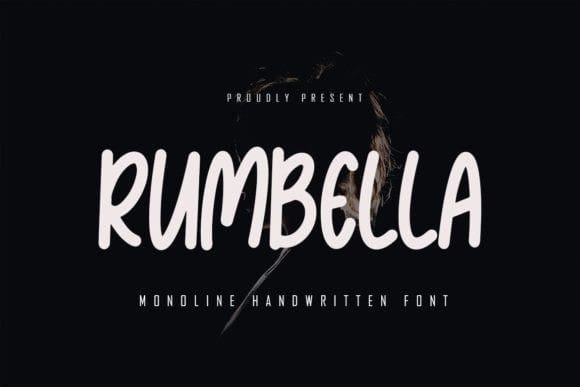
Rumbella Font
Rumbella Font is a Monoline and Playful handwritten font crafted to give your headlines and logotype projects a stylish touch. This font reads as strong, confident, and dynamic and can add tons of urban character to your designs.